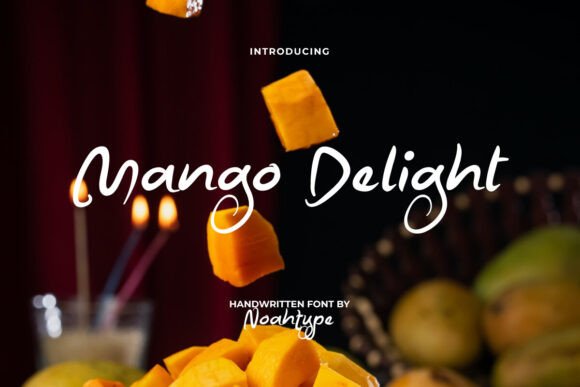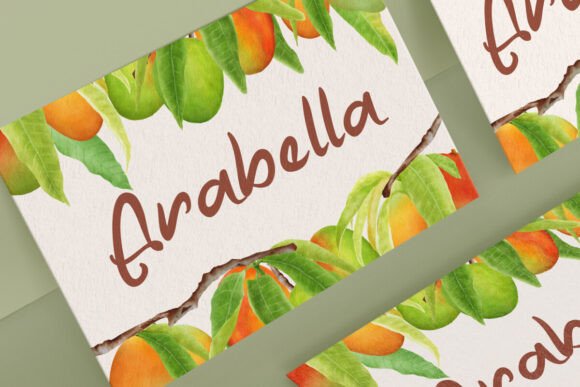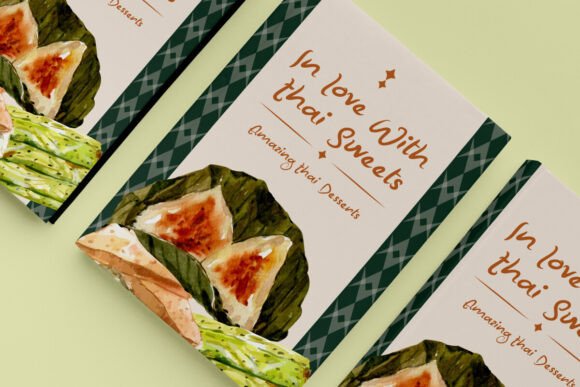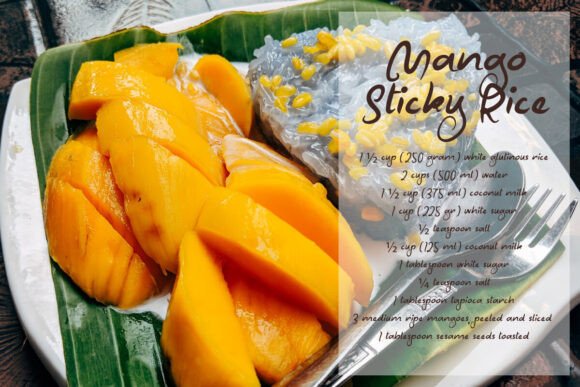
Mango Delight Font: A Stylish Handwritten Script for Branding
About the Mango Delight Font
Get ready to be inspired by Mango Delight Font, a fresh and dynamic typeface for modern creators. Mango Delight Font is a unique stylish brush written font created by NoahType. Every stroke made for this font is used with care and aesthetics, you can find it on the line that hangs down like a mango shape. It will be suitable for any industries, such as advertisement, café, event or festival, fashion, florist, printing, publishing, restaurant, and more!
Mango Delight’s playful, slightly quirky brush script style is ideal for headlines, short text blocks on posters or invitations, and branding elements like logos or short taglines where its unique character can shine. It works exceptionally well for projects related to food, fashion, or events that require a touch of handcrafted charm. However, its less-than-optimal legibility makes it unsuitable for body text or UI elements requiring extended reading.
Consider pairing Mango Delight with a clean sans-serif like Montserrat for a contemporary feel, or a classic serif such as Playfair Display for a more traditional yet balanced aesthetic. For a more playful look, a geometric sans-serif such as Futura might provide an interesting contrast. The key is to choose a complementary font that provides readability where Mango Delight lacks.
The font projects a friendly, approachable, and slightly whimsical personality. Its handcrafted quality adds a touch of authenticity, making it perfect for brands that wish to convey warmth and creativity.
Mango Delight Font Usage Examples
Mango Delight Font Example